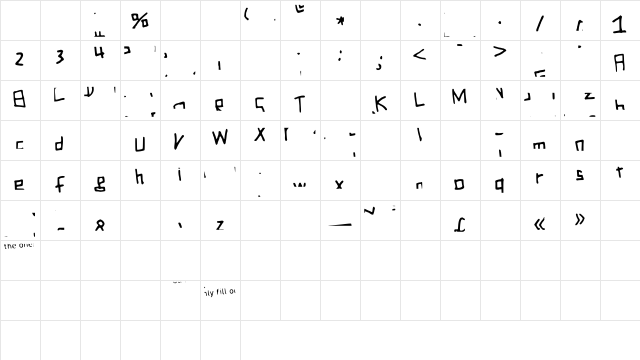
SuperFont Medium
Design Context for SuperFont Typeface
SuperFont is a composed and adaptable typeface that performs quietly and consistently across a wide range of design contexts.